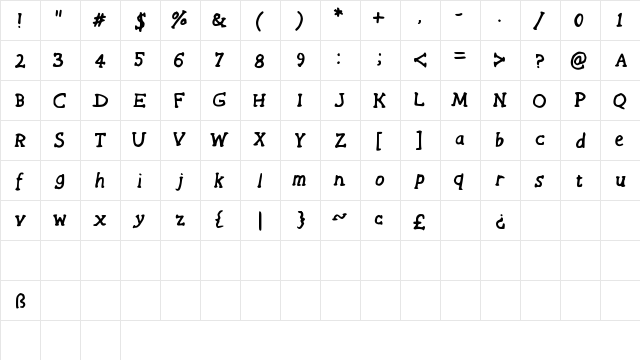
HandyWesternSerif Medium
Design Context for HandyWesternSerif Typeface
HandyWesternSerif taps into classic Western woodtype traditions — bold, characterful, and impossible to ignore.
A natural fit for craft spirits, ranch branding, rodeo events, and Americana-inspired design work.
Font Pairing: Combine HandyWesternSerif with a simple slab or neutral sans — period-accurate companions reinforce the vintage feel without competing for attention.
Pro Tip: Use HandyWesternSerif for short, impactful bursts of text — it shines in poster headlines and product names rather than extended copy.